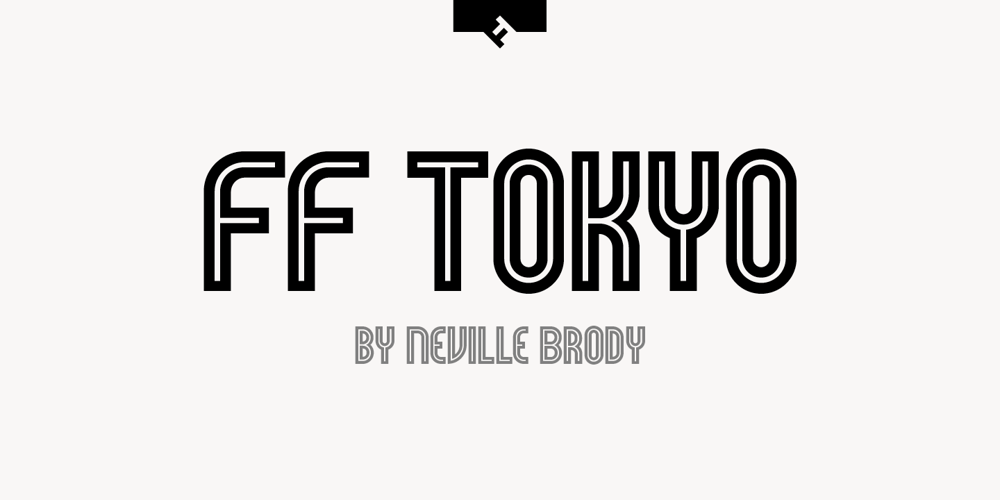
FF Tokyo Font Family was designed by Neville Brody and published by FontFont. FF Tokyo contains 4 styles and family package options. British type designer Neville Brody created this display FontFont in 1993. The family contains 4 weights and is ideally suited for poster and billboards and sports. FF Tokyo provides advanced typographical support with features such as ligatures. It comes with proportional lining figures.